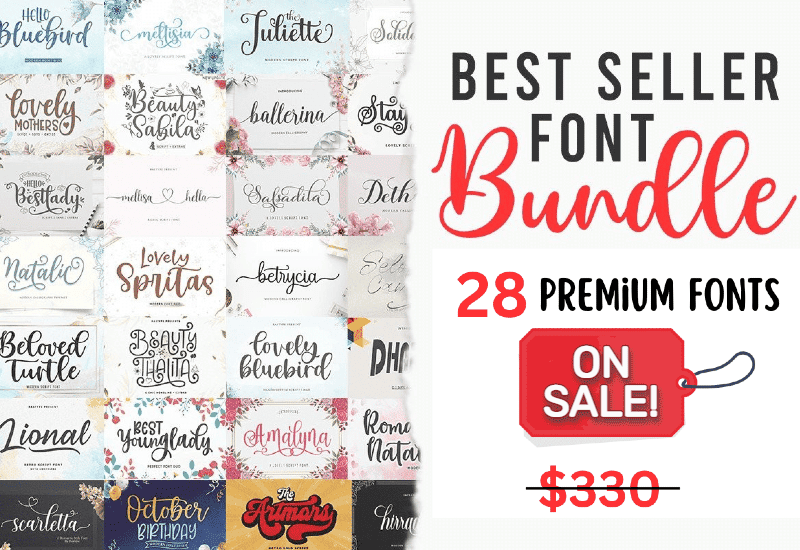
The Best Seller Font Bundle is a remarkable collection of 28 script fonts created by rastype1010, designed to elevate and enrich any creative project. Whether you’re a graphic designer, a wedding planner, or someone who simply appreciates beautiful typography, this font bundle is a treasure trove of artistic possibilities.
Benefits of Using the Best Seller Font Bundle
The Best Seller Font Bundle offers numerous advantages that make it a must-have resource for designers and enthusiasts alike. Firstly, its versatility allows for a wide range of design projects. From professional logos to personal wedding invitations, pantry labels to eye-catching posters, the fonts in this bundle are well-suited for diverse applications.
With its ability to enhance creativity and bring a unique touch to your designs, Each font has its own personality and style, enabling you to create visually stunning and original compositions. The fonts’ varied aesthetics cater to different design preferences, ensuring there is something for everyone.
Moreover, most of the fonts in the Best Seller Font Bundle are PUA encoded. This means you can easily access a plethora of special characters, glyphs, and ligatures, opening up endless possibilities for customization and artistic expression. The convenience of PUA encoding streamlines the design process and allows you to effortlessly incorporate ornate elements into your work.
Showcase of Font Examples and Applications
The Best Seller Font Bundle excels in a wide array of design applications. Let’s explore some popular uses for these fonts, showcasing their versatility and impact.
- Logos and Branding: With their unique styles and intricate details, the fonts in this bundle are perfect for creating memorable logos and establishing strong brand identities. They capture attention and leave a lasting impression on customers and clients.
- Wedding Invitations and Stationery: The elegant and romantic nature of many fonts in the bundle lends itself perfectly to wedding invitations, RSVP cards, and other stationery items. From classic scripts to whimsical handwritten fonts, there is a font to match every couple’s vision.
- Pantry Labels and Packaging: Adding a touch of creativity to pantry labels and product packaging can make a world of difference. The Best Seller Font Bundle provides a selection of fonts that can transform plain labels into eye-catching designs, elevating the visual appeal of homemade goodies or small business products.
- Greeting Cards and Posters: Sending heartfelt messages or creating impactful posters requires fonts that convey emotions effectively. The fonts in this bundle offer a range of styles, from delicate and flowing to bold and expressive, enabling you to convey your desired message with precision.
- Website Design and Digital Media: In the digital realm, fonts play a vital role in user experience and brand consistency. The Best Seller Font Bundle offers fonts that are both legible and visually engaging, making them ideal for website design, social media graphics, digital presentations, and more.
Exploring Key Fonts in the Bundle
The Best Seller Font Bundle includes a diverse selection of fonts, each with its own charm and appeal. Let’s take a closer look at some of the standout fonts that make this bundle exceptional:
- Lovely Mothers Script & Handwritten Font:
- Description: A delicate and elegant font with flowing strokes, perfect for feminine designs and sophisticated branding projects.
- Features: Includes ligatures and alternate characters for added customization options.
- Solidaritas Script & Handwritten Font:
- Description: A versatile font with a balanced mix of elegance and modernity, suitable for various design contexts.
- Features: Comes with multiple stylistic sets and swashes for creative versatility.
- Lovely Bluebird Script & Handwritten Font:
- Description: A whimsical and playful font that exudes joy and creativity, ideal for children’s designs and light-hearted projects.
- Features: Offers cute and quirky stylistic alternates and ligatures.
- Hello Bestlady Script & Handwritten Font:
- Description: A refined and sophisticated font with a timeless appeal, suitable for upscale branding and editorial designs.
- Absolutely! The fonts in the bundle come with various stylistic alternates, ligatures, and swashes, allowing you to customize and personalize your designs.